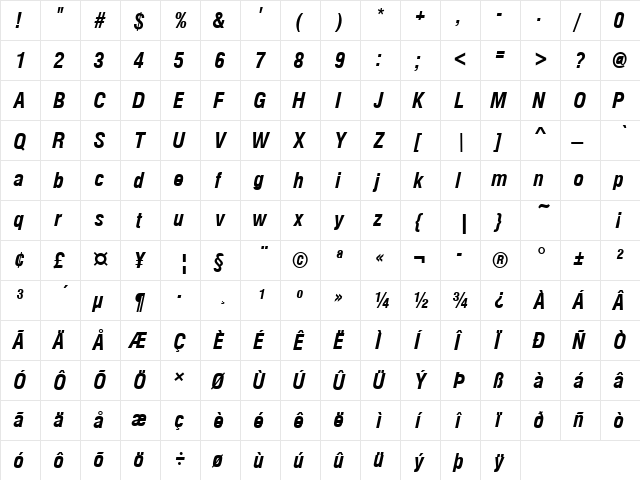
Nimbus Sans Becker PCon Bold Italic Font Preview
Design Context for Nimbus Sans Becker PCon Typeface
Nimbus Sans Becker PCon takes a measured approach to typography — its balanced proportions and neutral character make it a reliable workhorse for both digital and print work. The slanted form adds forward momentum and visual energy. The heavy weight commands attention and anchors typographic hierarchies.
Pro Tip: Use Nimbus Sans Becker PCon for emphasis, pull quotes, and subheadings where its slanted energy can add rhythm to the layout.